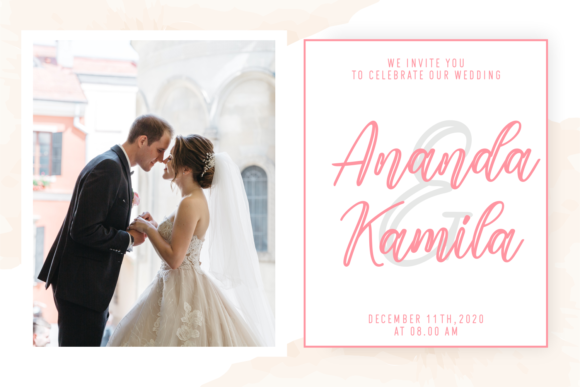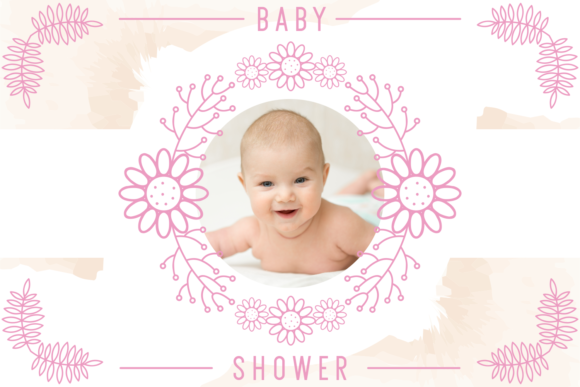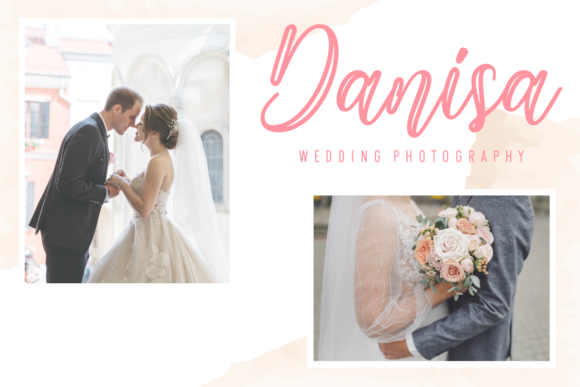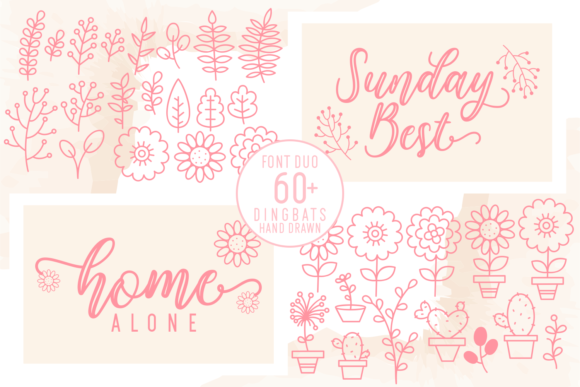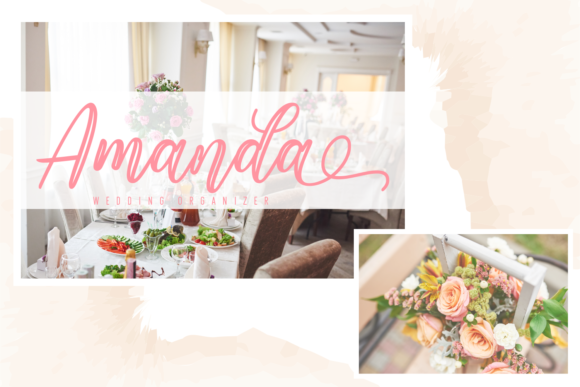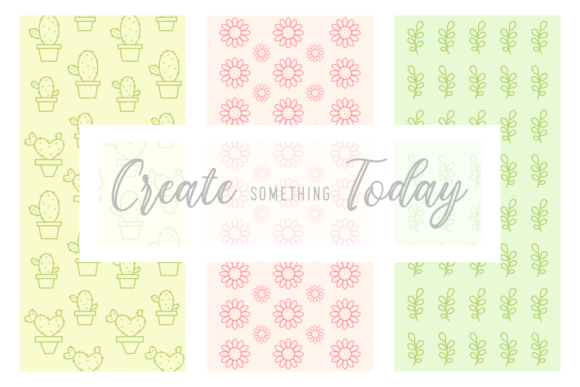
The Perfect Blend of Elegance and Whimsy
Have you ever sat at your desk, staring blankly at a blank page, searching for the perfect font to bring your design to life? You know the feeling – like your creative spark is waiting to be ignited by the right combination of letters and lines.
Enter Calyne Font, a delicate and elegant handwritten font that’s sure to capture your heart. With its unique blend of floral elements and well-rounded letters, this font is a true masterpiece. Whether you’re designing a wedding invitation, a branding package, or a simple greeting card, Calyne Font is the perfect choice to add a touch of whimsy and sophistication to your work.
Calyne Font Key Features
- Font Family: Calyne Font
- Font Style: Script, Calligraphy
- Unique Characteristics: Elegant, cursive script; suitable for wedding invitations, certificates, and formal events
Calyne Font Review
Calyne Font is a beautiful script font that can elevate any design project. It has a unique, handwritten feel that works well for branding, invitations, and other creative applications. ✨ I particularly love the subtle flair at the end of each letter, which adds a touch of sophistication and elegance.
Here are some of the things that Calyne Font does well:
- ✨ Unique and expressive style that sets it apart from other fonts
- ✨ Highly legible, even at small font sizes
- ✨ Great for creating a sense of whimsy and playfulness
- ✨ Works well for both digital and print applications
- ⚠️ Limited character set, which may require additional font files for extended use
- ⚠️ May not be suitable for formal or professional applications, due to its informal feel
- ⚠️ Can be difficult to read in certain font sizes or combinations
Overall, I think Calyne Font is a great addition to any designer’s toolkit. While it may have some limitations, its unique style and expressiveness make it a valuable resource for creative projects. With careful use and consideration of its limitations, Calyne Font can help take your designs to the next level.
Tips for Getting the Most Out of Calyne Font
Use Calyne Font to add a touch of elegance and sophistication to your designs. Experiment with different font sizes and colors to create visual interest. Pair Calyne Font with other fonts to create a unique and eye-catching combination.
Calyne Font is perfect for:
– Luxury brand logos and marketing materials
– High-end fashion and beauty packaging
– Any design that requires a touch of sophistication and elegance